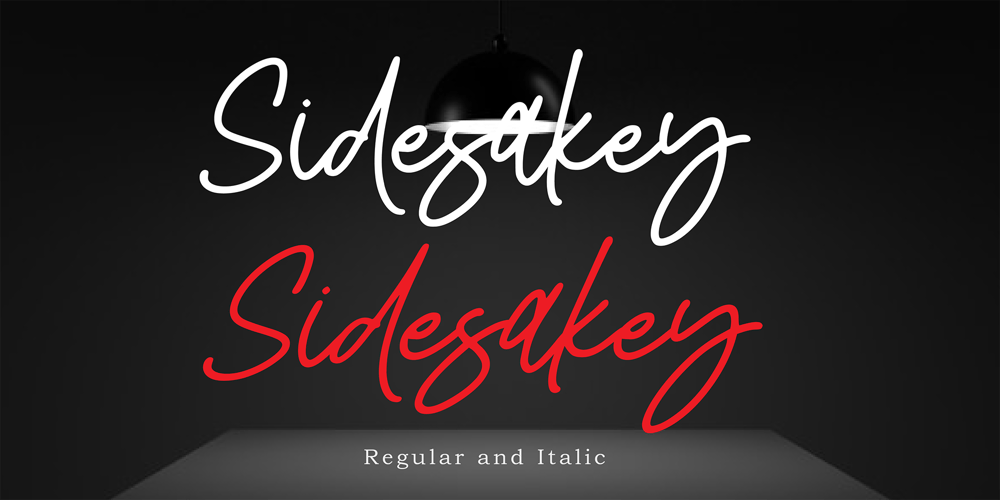
Sidesakey
Sidesakey font
Sidesakey Font Family was designed by Amin Maryono and published by Aminmario Studio. Sidesakey contains 2 styles and family package options. Sidesakey simplifies elegance into one truly stunning handwritten font. With its relaxed feel, Sidesakey is incredibly versatile, suitable to each of the design projects you may have in mind! Use it to create beautiful greeting cards, wedding invitations, logos, website titles and much more!Comes in Regular and Italic styles.Thank you for your purchase!Hope you enjoy with our font